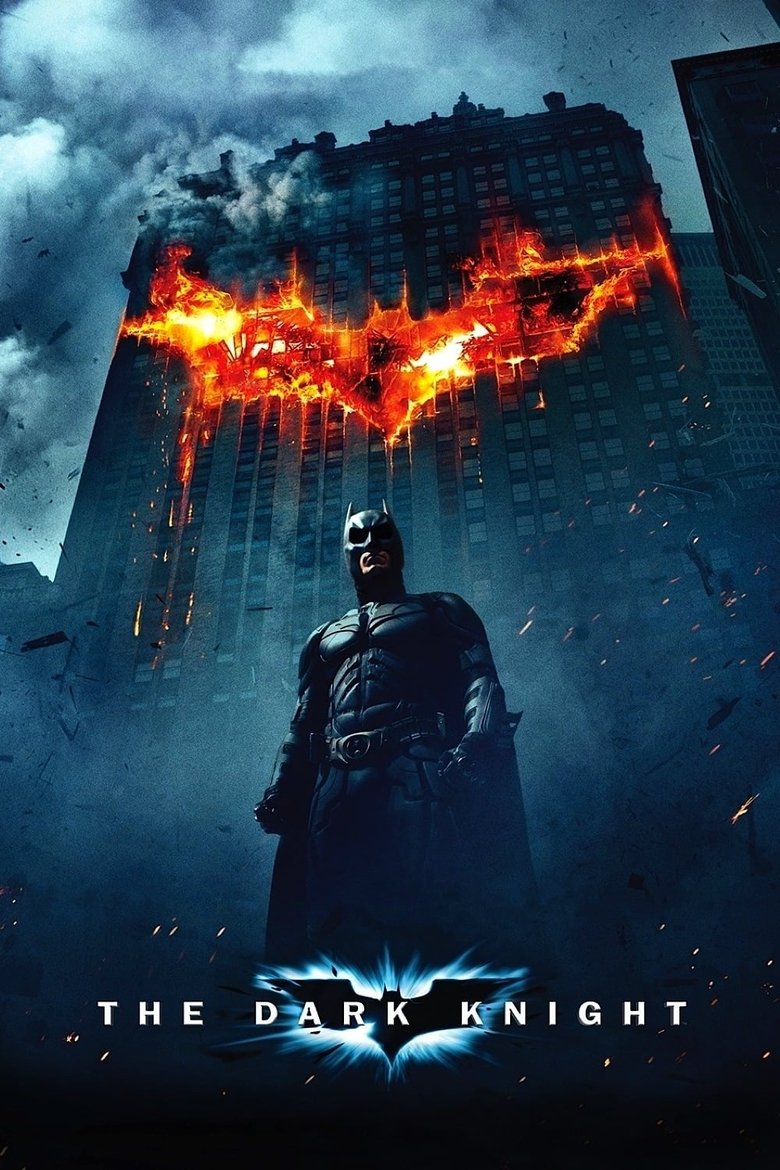
About the The Dark Knight font
The Dark Knight's logo is a stencilled, industrial display. Wallpoet brings that same cut-metal Gotham edge with an open licence.
What font is used in the The Dark Knight logo?+
The original The Dark Knight logo uses custom lettering. This generator recreates the look with Wallpoet — a free, open-license font you can style and download.